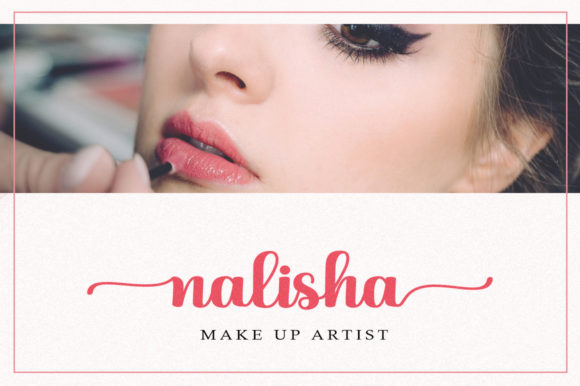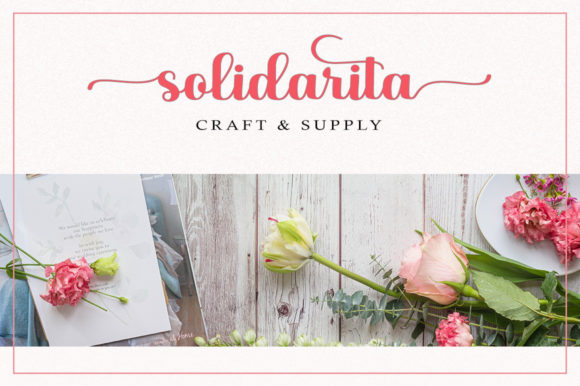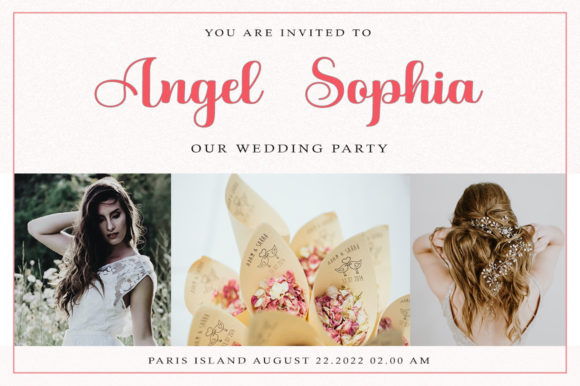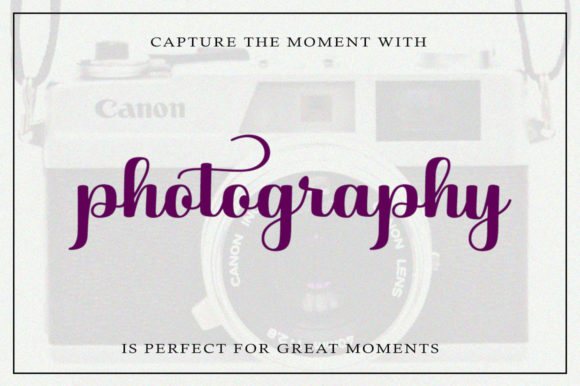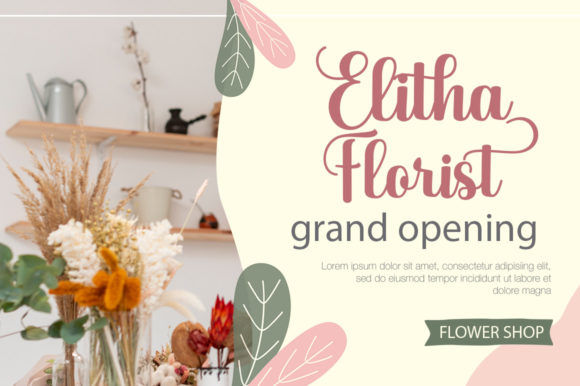
About Baby Girly Font
Baby Girly is a flowing handwritten font, described by an elegant touch. Fall in love with its incredibly distinct and timeless style and use it to create spectacular designs! This font is PUA encoded which means you can access all of the glyphs and swashes with ease!Â